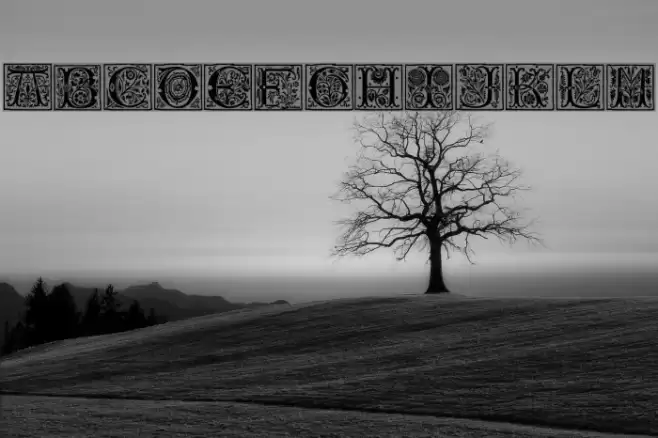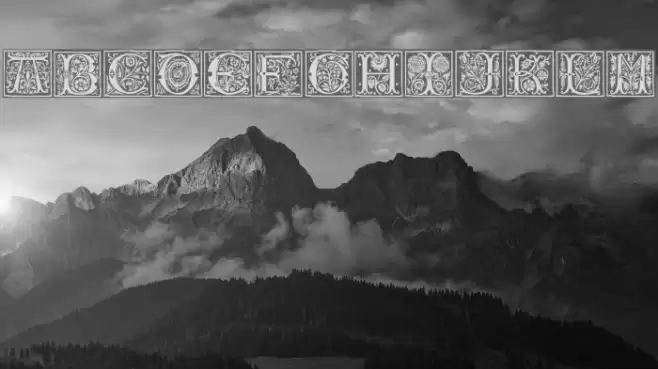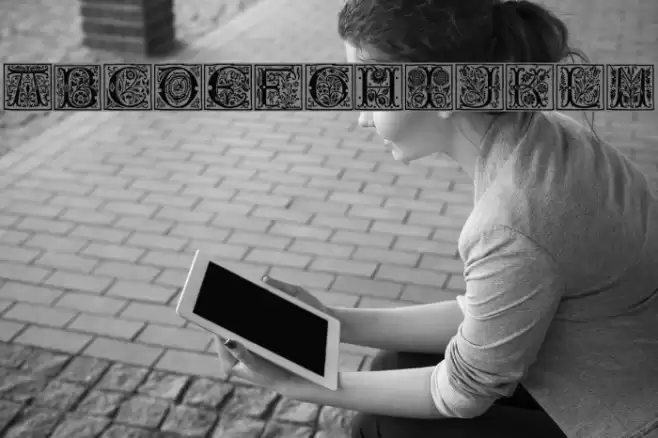
Romant Font
Romant Description
This font features ornate and decorative capital letters, each enclosed within a square frame. The intricate designs within each letter are reminiscent of vintage or medieval manuscript illuminations, with floral and vine motifs adding a touch of elegance and complexity. The style is highly decorative, making it suitable for projects that require a historical or classical aesthetic. The font is limited to uppercase letters, emphasizing its use for decorative purposes rather than body text.
Ornate, decorative uppercase font with intricate designs from Uncategorized fonts.
- Proposed Projects: Ideal for wedding invitations, historical themed projects, book covers, or any design requiring a vintage or classical touch.
- Overall Style: Vintage